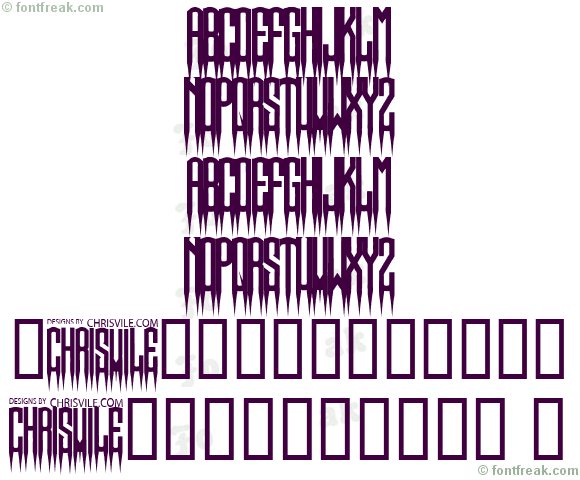
Spiked Regular
About Spiked Regular
Spiked Regular is a striking display font designed by Chris Vile, showcasing a unique character that sets it apart in the world of typography. As a decorative font, it is characterized by its sharp, spiked edges that add an edgy flair to any design. The font features bold stroke weights with a moderate contrast, creating a visually dynamic appearance. The spacing is well-balanced, allowing for legibility while still making a bold statement. Each letter possesses a distinctive shape, with angular and pointed elements that evoke a sense of modernity and creativity.
This font is perfect for a variety of specific use cases. It can add a dramatic touch to movie posters, capturing attention with its unique style. Wedding invitations can also benefit from Spiked Regular's distinctiveness, making them memorable and eye-catching. Additionally, it serves well in branding for restaurants, particularly those aiming for a modern or eclectic vibe. Graphic designers will find the font ideal for creating logos or promotional materials that require a strong visual impact. Content creators looking to enhance their social media graphics will appreciate its ability to stand out in crowded feeds.
In conclusion, Spiked Regular font free download offers an exciting opportunity for those looking to add a bold, edgy touch to their designs. Its unique visual characteristics and versatility make it a standout choice, ensuring that any project utilizing this font will leave a lasting impression.